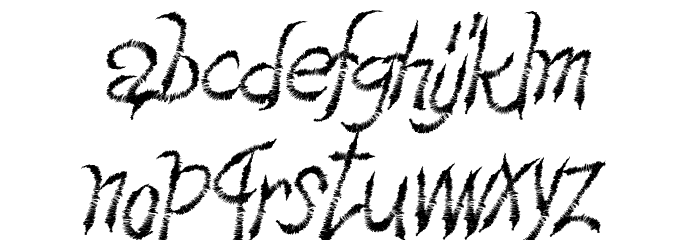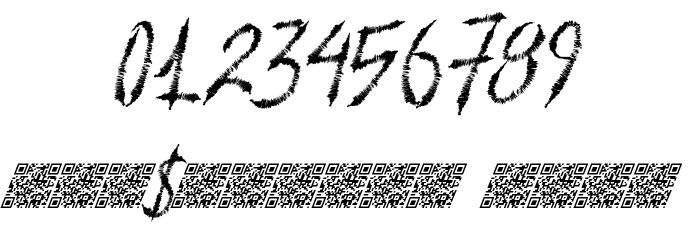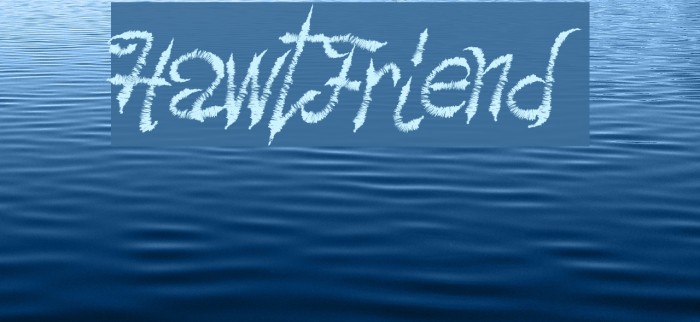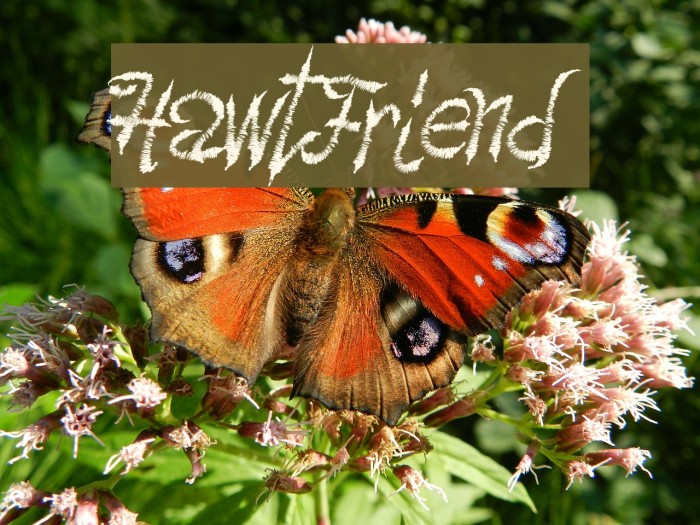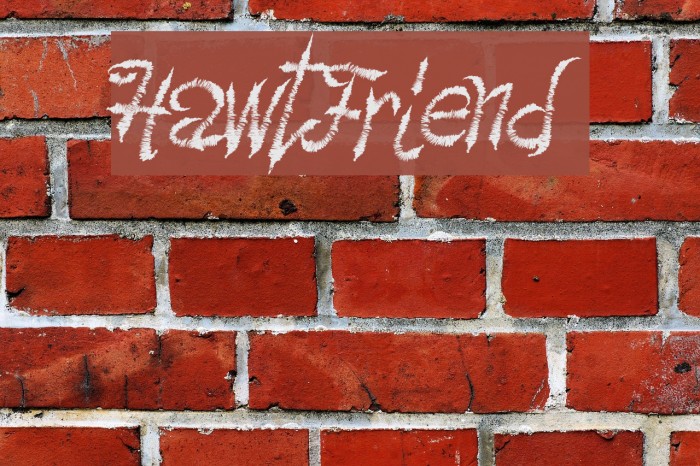
HawtFriend Font
This font features a unique, textured style that resembles brush strokes or fur, giving it a dynamic and energetic appearance. The letters are bold and slightly slanted, adding a sense of movement and flair. Each character is distinct with a playful yet edgy design, making it stand out in any context. The uppercase and lowercase letters maintain a consistent style, while the numbers and special characters integrate seamlessly with the overall aesthetic. This font is ideal for projects that require a bold statement or a creative touch, such as posters, album covers, or branding materials.
A bold, textured font with a dynamic, brush-like appearance.
- Proposed Projects: Ideal for posters, album covers, branding materials, and creative designs.